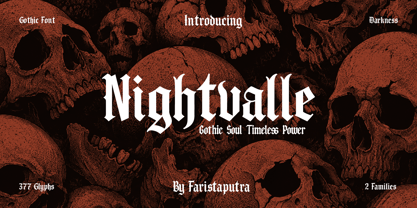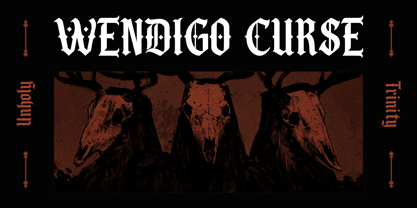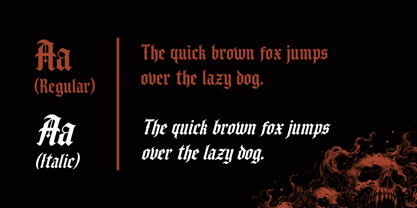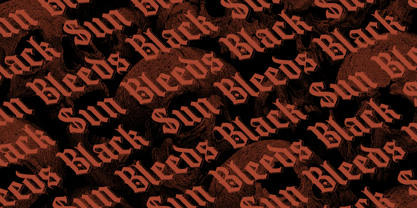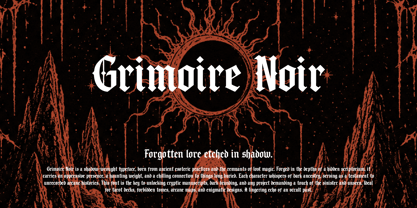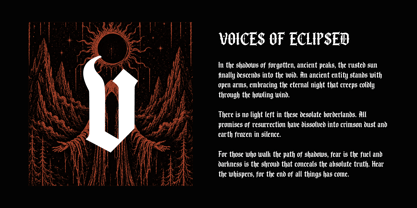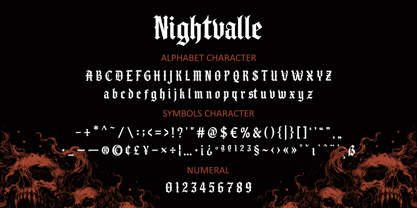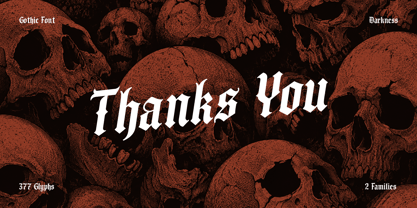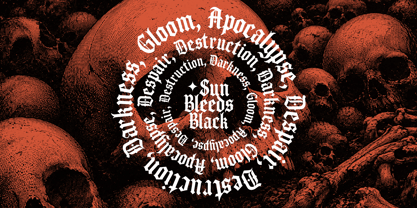
Nightvalle
by Faristaputra
The Nightvalle Font Family was designed by Frederik Aristaputra and published by Faristaputra. Nightvalle contains 2 styles and family package options. More about this family
Nightvalle is a gothic typeface designed to deliver a dark, bold, and timeless look. Inspired by vintage blackletter typography with an edgy touch, this font features sharp letterforms, intricate details, and a powerful presence that creates a strong, aggressive visual impression.
Perfect for band logos, alternative fashion apparel, vintage branding, album covers, tattoo studio identities, and striking headline designs. Nightvalle brings a raw and dark aesthetic to any project, making it ideal for designers who want to create an edgy and impactful identity.